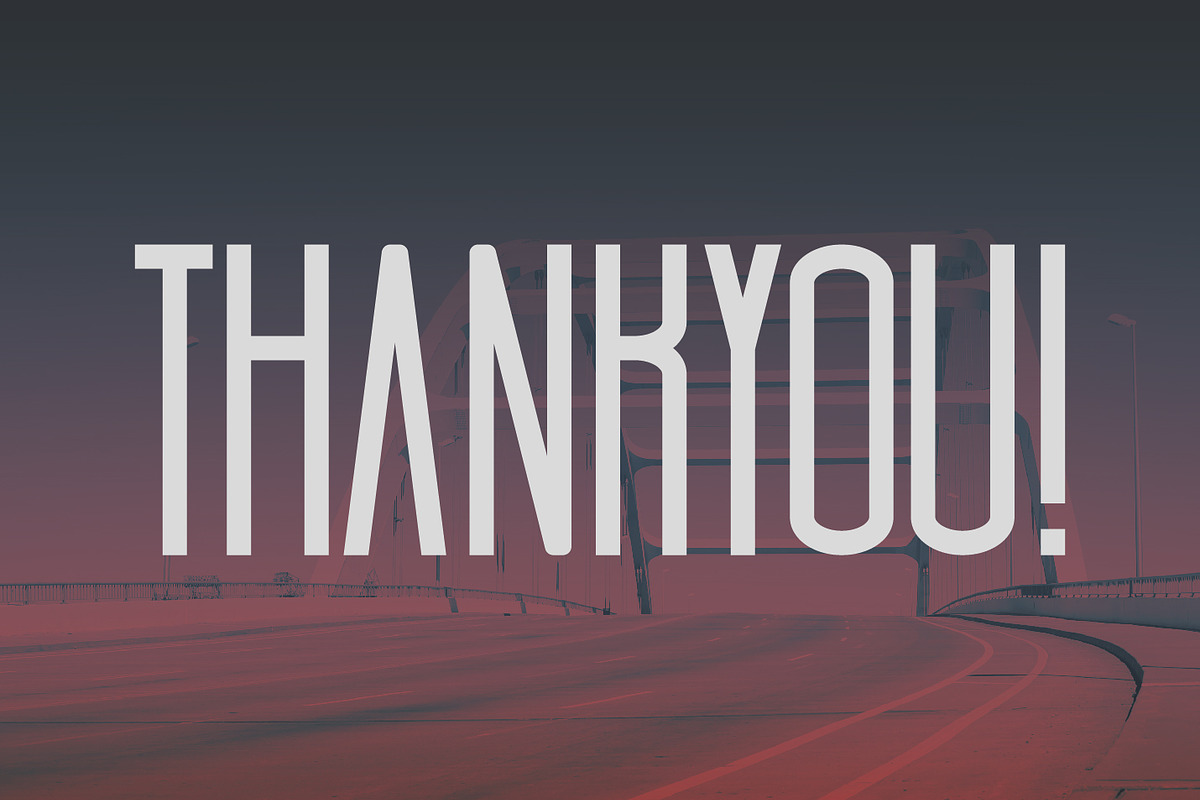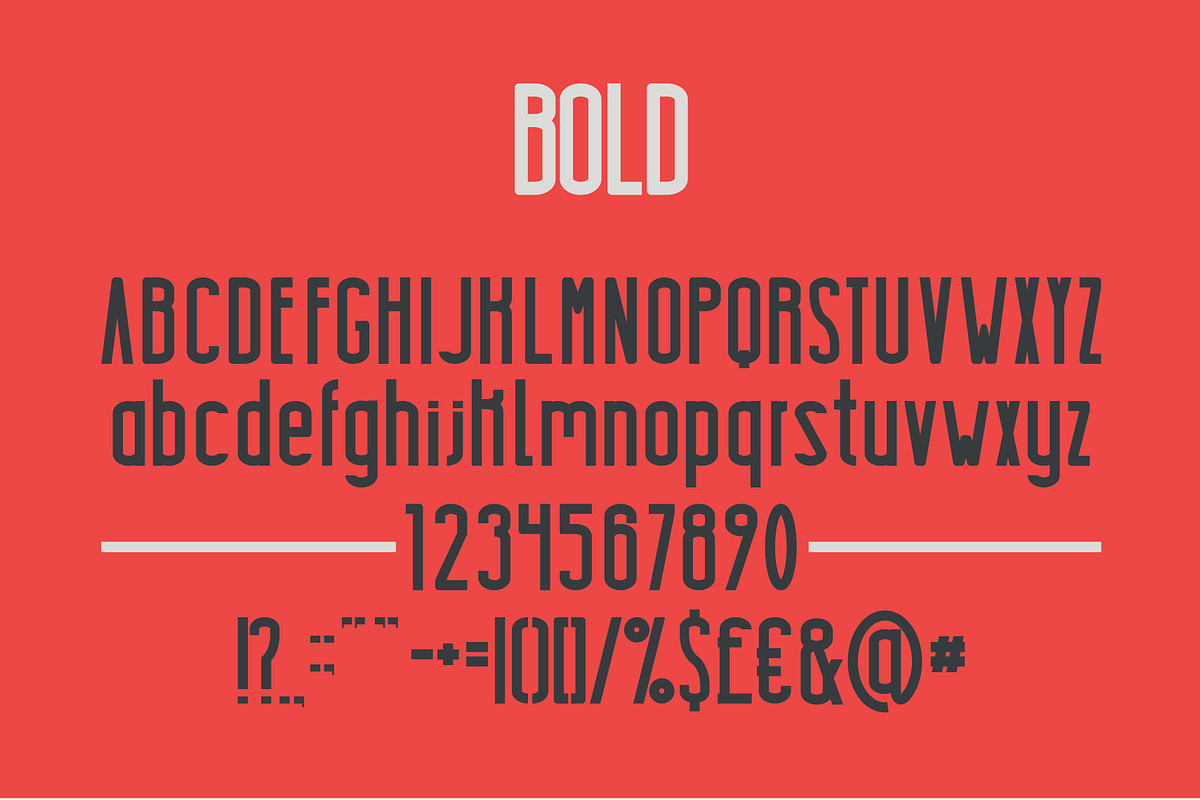
Highrise Typeface
Highrise Typeface by MikeHill is a font selected for branding, posters, packaging, typography.
- Includes upper and lower case in 3 different weights.
- Highrise Light
- Highrise Regular
- Highrise Bold
Highrise Typeface by MikeHill fits naturally into Branding, posters, packaging, typography.